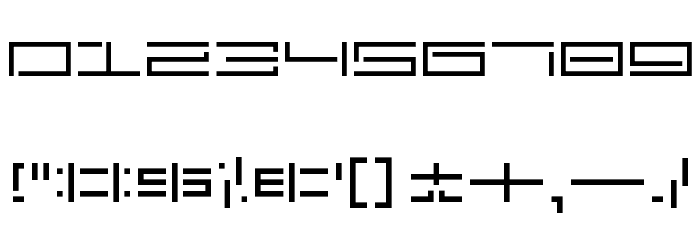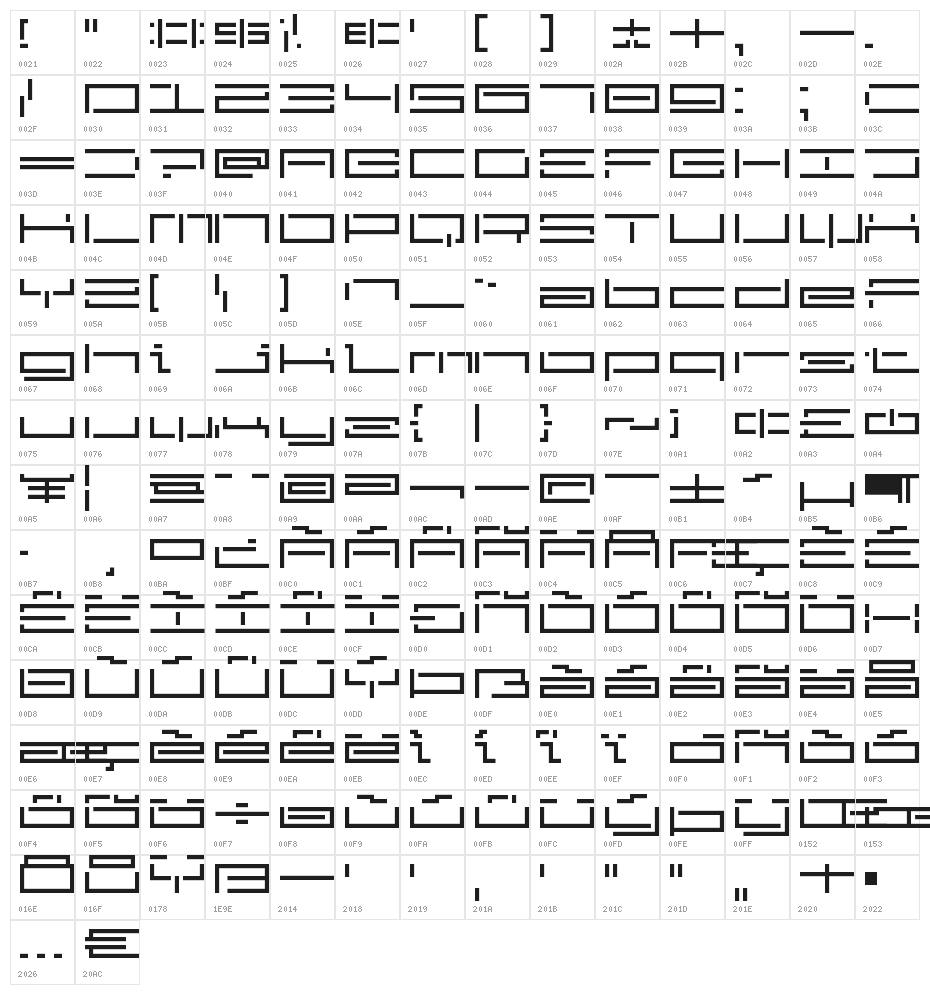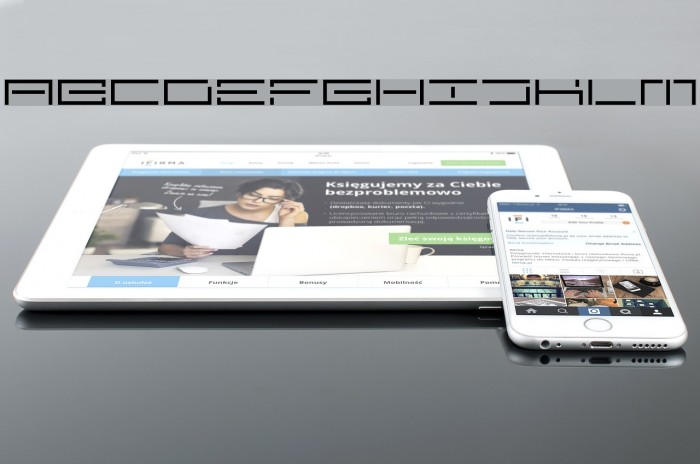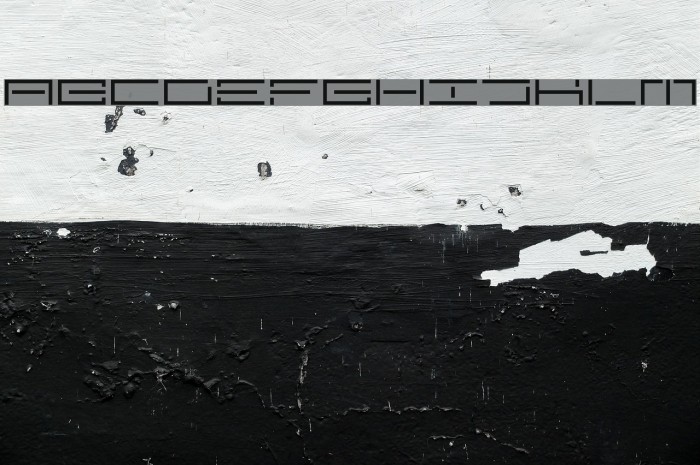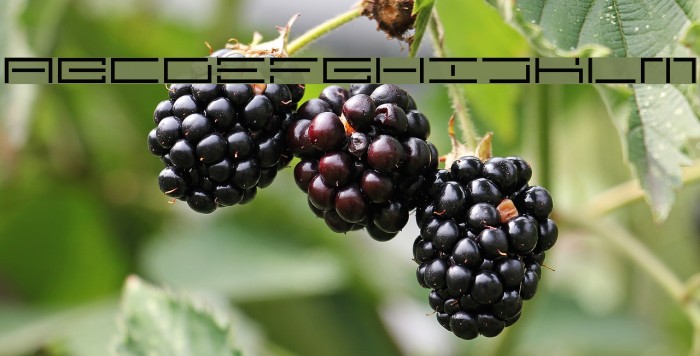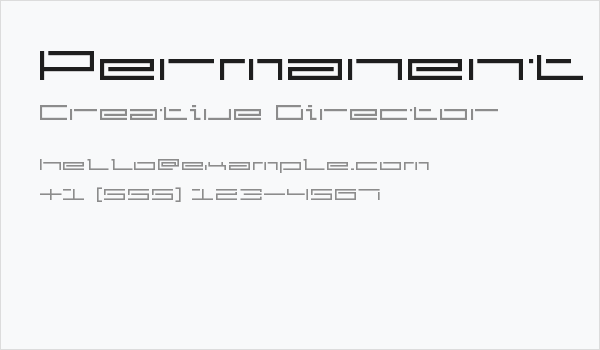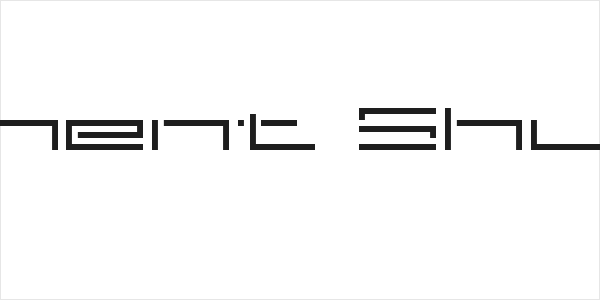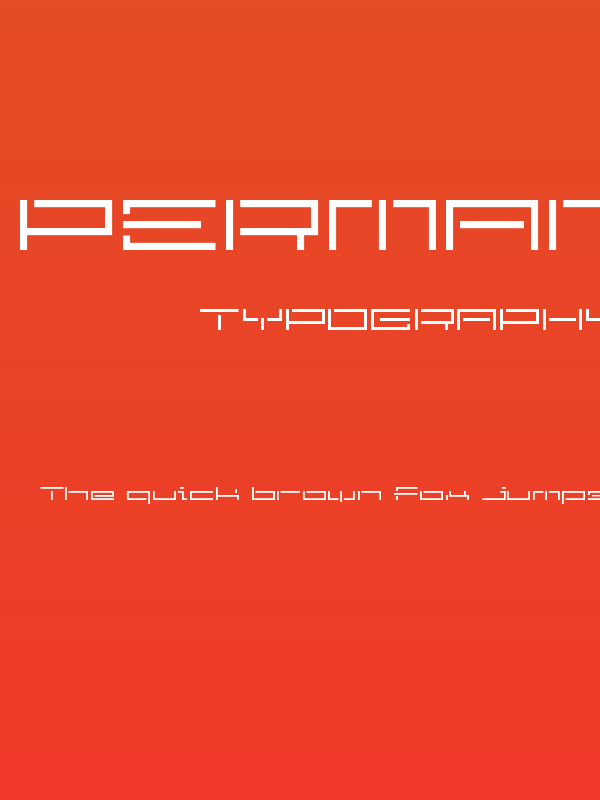
Permanent Shutdown Font
Permanent Shutdown Description
This font features a futuristic and geometric design, characterized by its blocky and angular letterforms. The characters are constructed with a consistent line weight, giving it a uniform appearance. The uppercase and lowercase letters maintain a similar structure, with subtle variations to distinguish them. The numerals and special characters follow the same design principles, ensuring cohesion across all glyphs. The font's style is reminiscent of digital or sci-fi themes, making it suitable for projects that require a modern and technological aesthetic.
| Proposed Projects | Ideal for tech-themed designs, video game interfaces, sci-fi movie posters, and digital branding. |